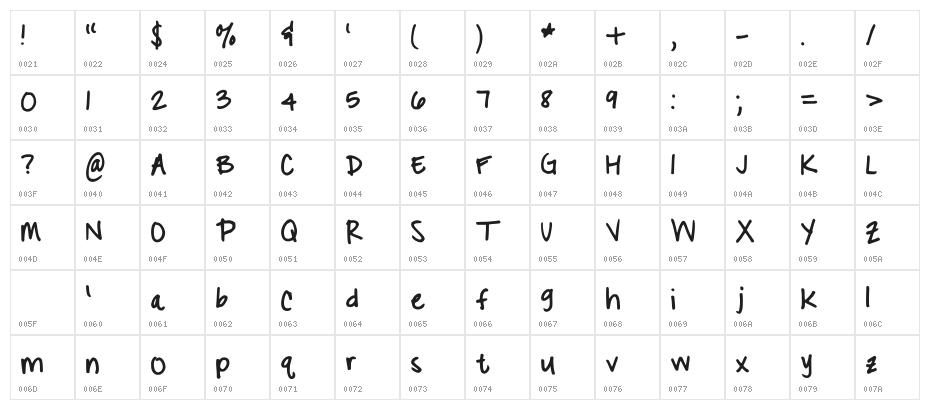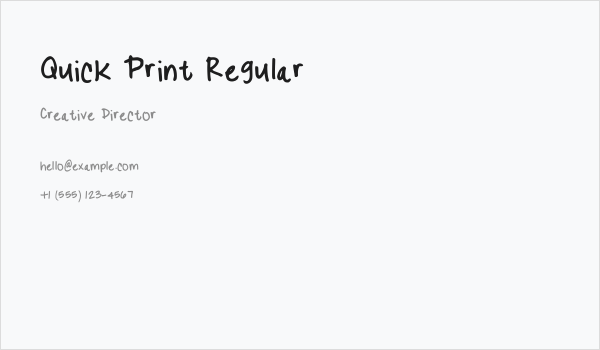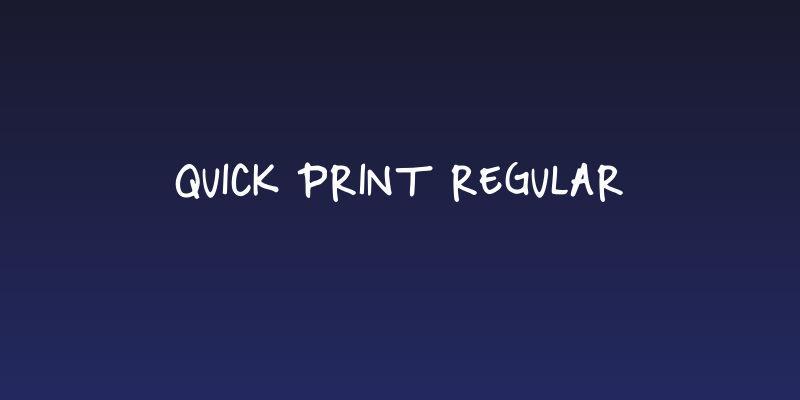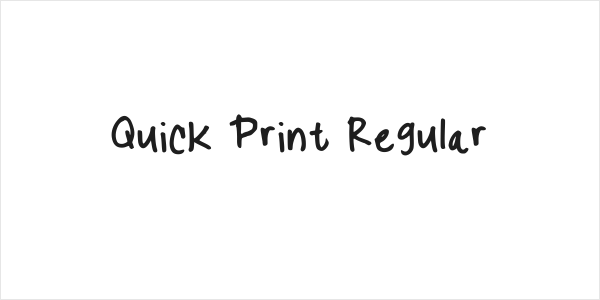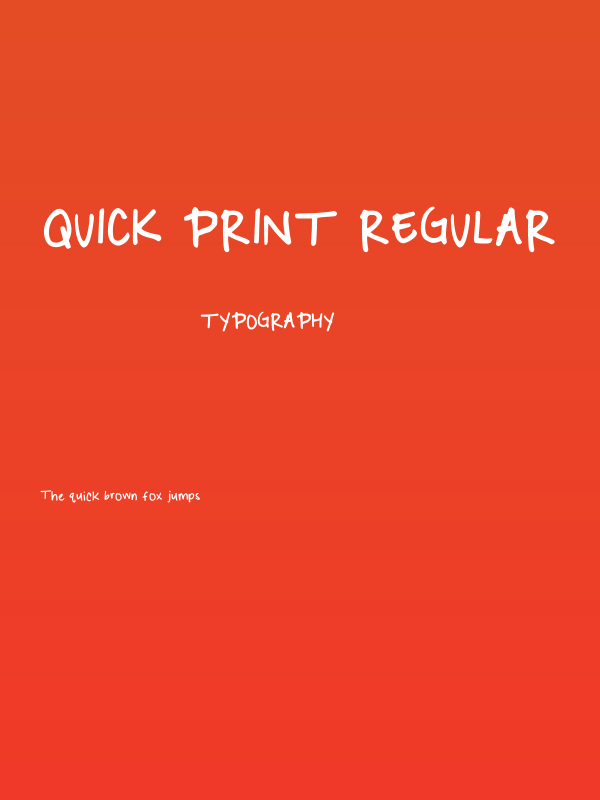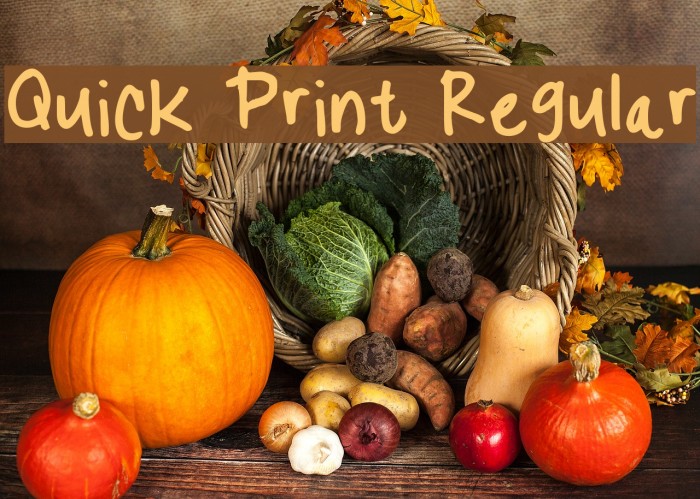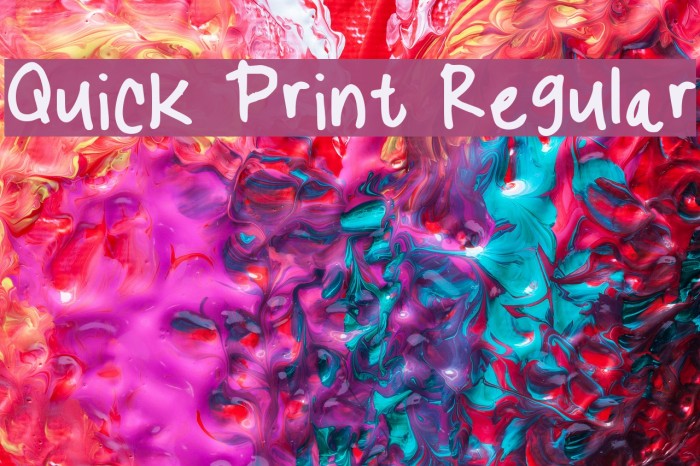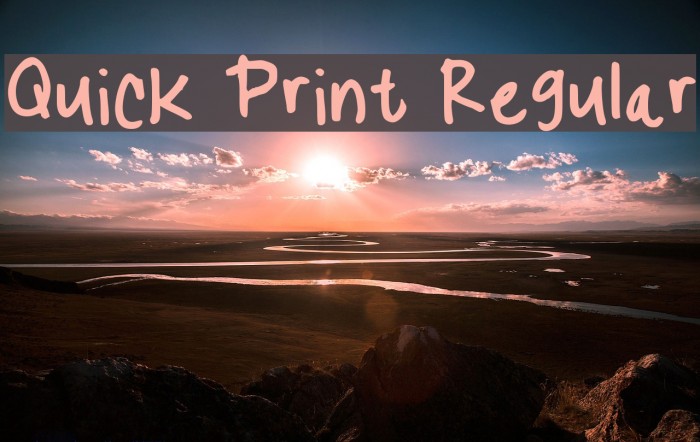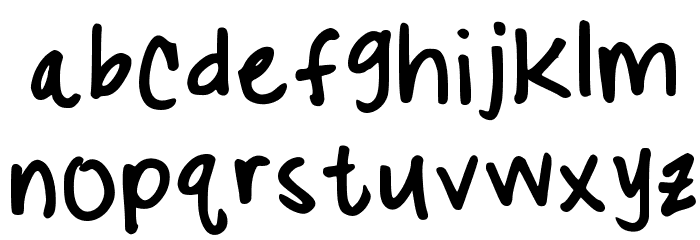
Quick Print Regular Font
Quick Print Regular Description
This font features a playful and informal handwritten style, characterized by its bold and rounded letterforms. The strokes are consistent in thickness, giving it a uniform appearance. The letters are slightly slanted, adding a dynamic and casual feel. The overall design is approachable and friendly, making it suitable for projects that require a personal touch. The characters are well-spaced, ensuring readability while maintaining a lively aesthetic. This font includes a full set of uppercase and lowercase letters, numbers, and a variety of special characters, making it versatile for different uses.
| Overall Style | Casual |
| Use Case | Headlines, Informal text, Branding |
| Proposed Projects | Ideal for greeting cards, children's books, casual branding, and social media graphics. |